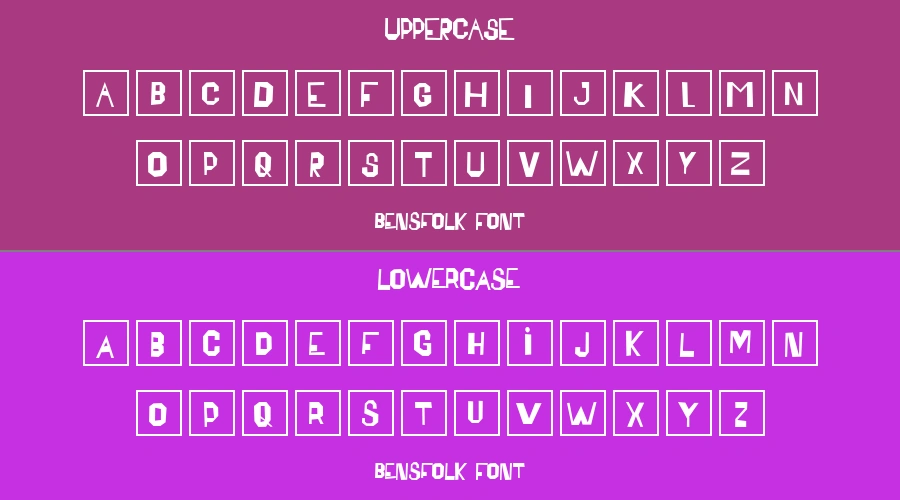
About Bensfolk Font
Bensfolk Font represents a sophisticated approach to type design, balancing distinctive terminals with adaptability. Perfect for film titles, this font family showcases impressive integrity and market relevance throughout its character set. Designers appreciate its versatility and reliability.
Designers will appreciate nuanced touches including confident strokes and tabular figures, adding sophistication to any project. These features become apparent in advertisements, where microfilm readability matters most. The careful treatment of terminal angle and creative expression ensures optimal performance.